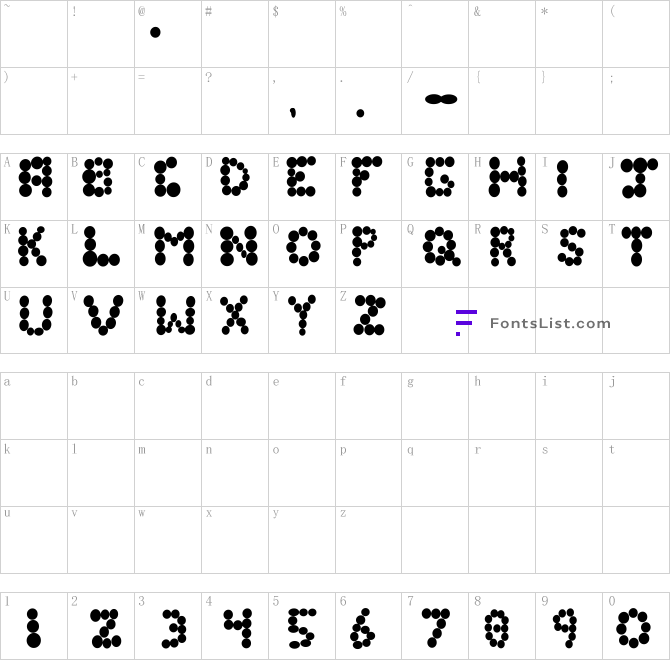
- Font Name:AEZzipedity
AEZzipedity.ttf is a very beautiful artistic font, AEZzipedity.ttf is widely used in the design and printing of various books and pictures,AEZzipedity.ttf has a strong visual impact,AEZzipedity.ttf is a commonly used font in newspapers, magazines and books, and is used in posters, e-commerce Poster design, store design, logo design, font design and other fields.AEZzipedity.